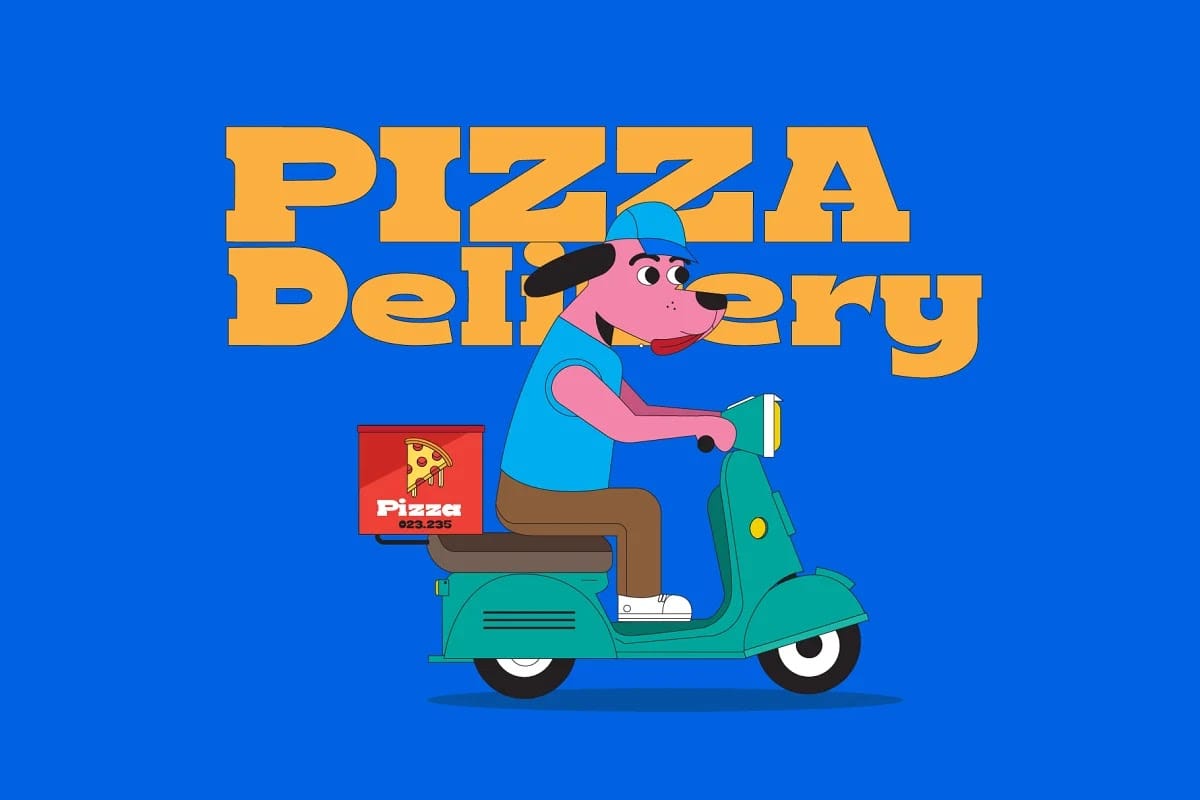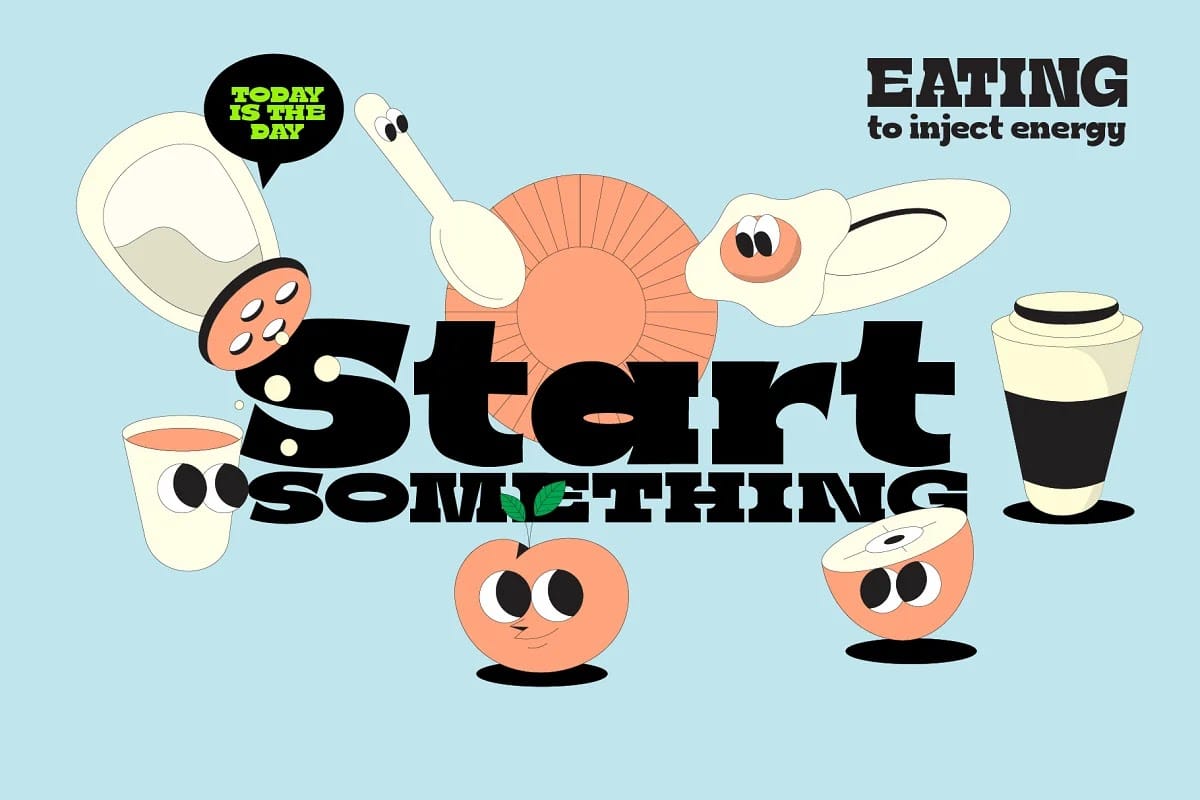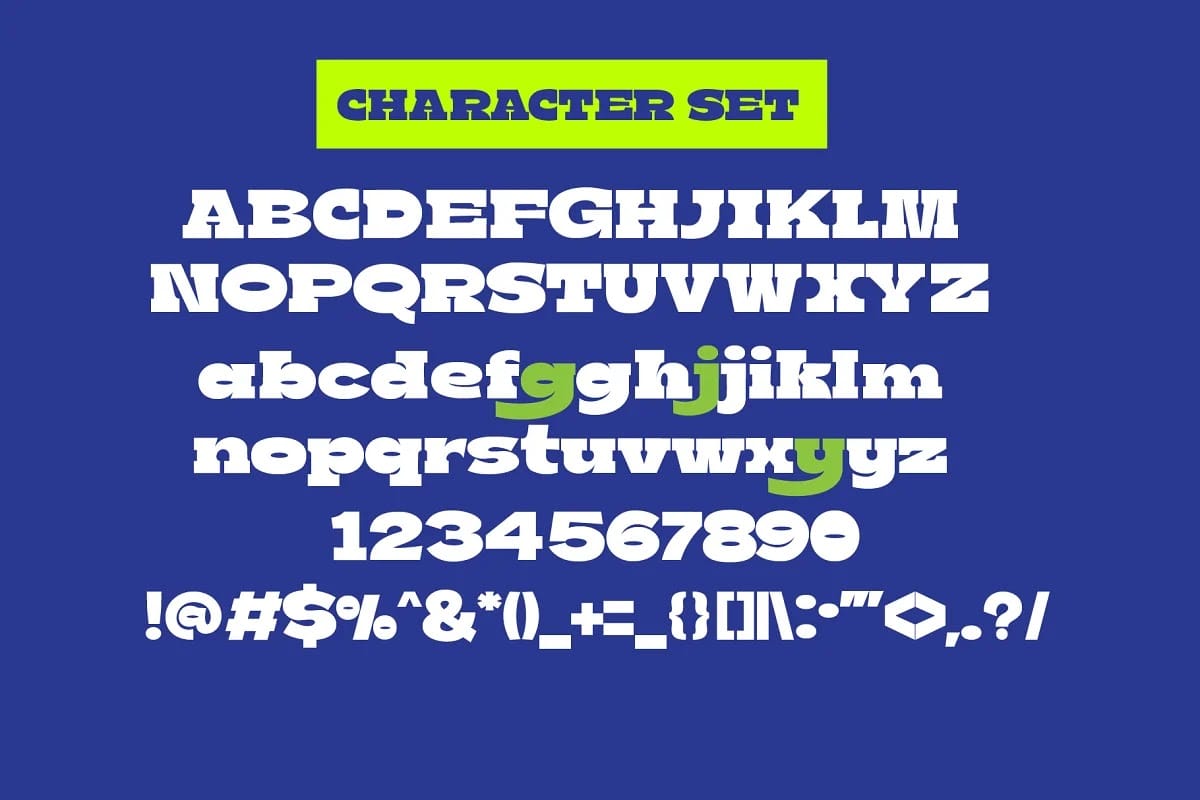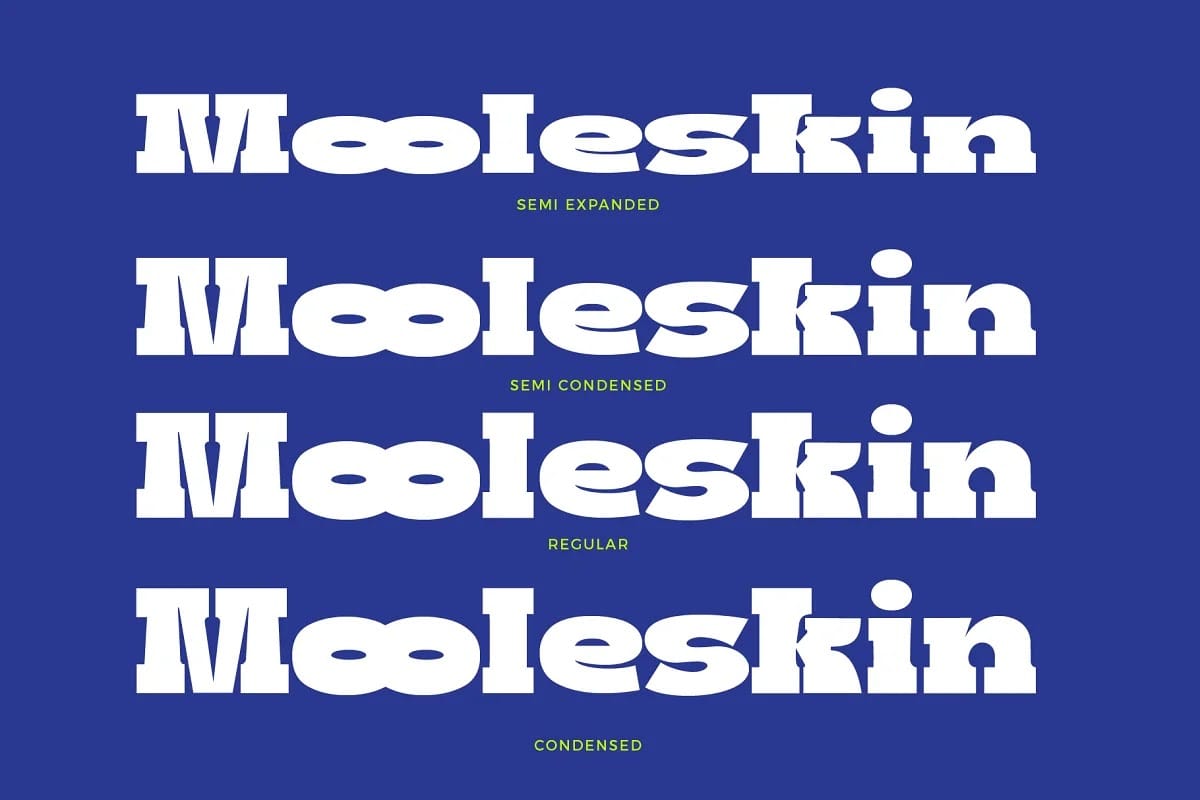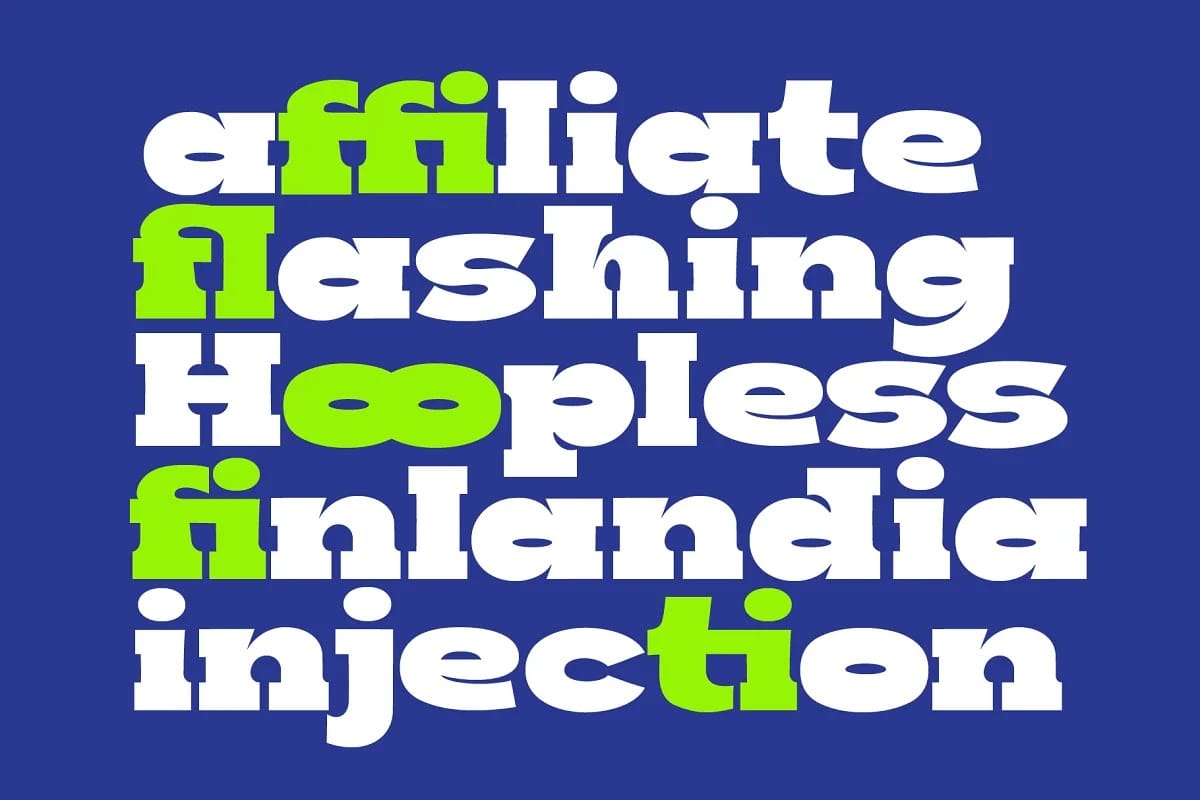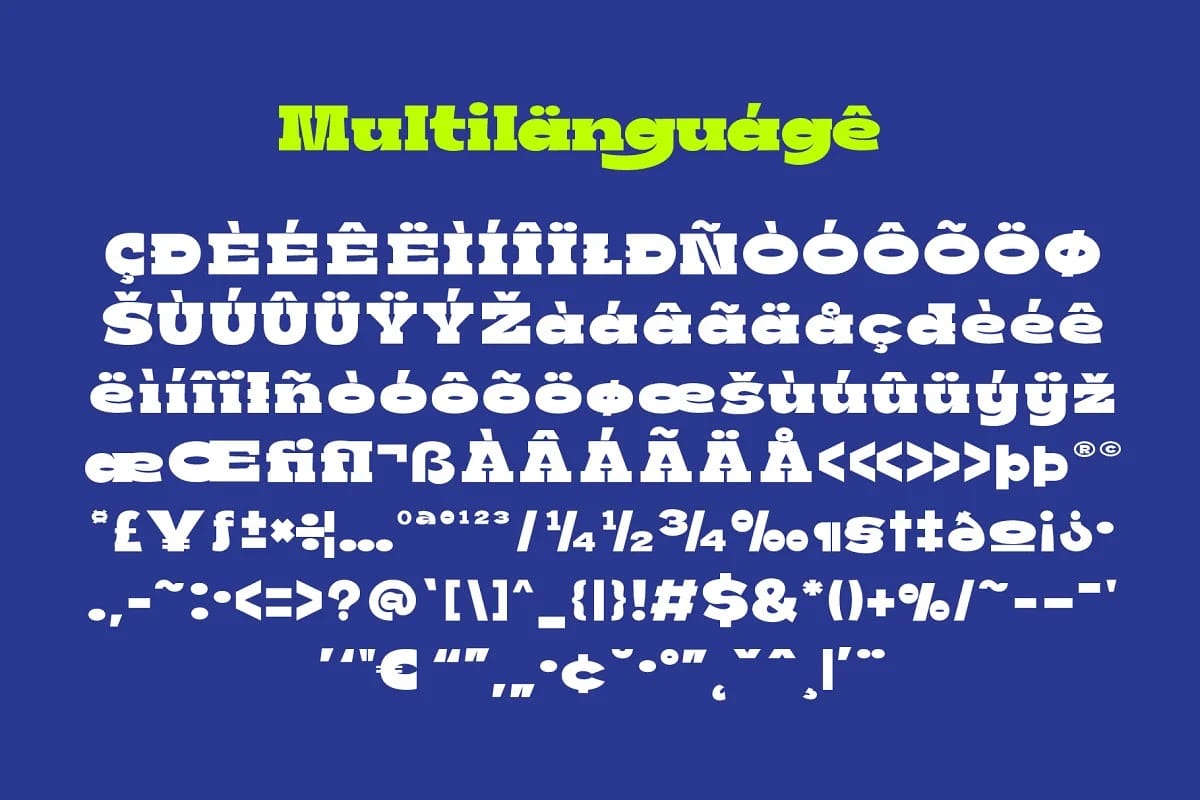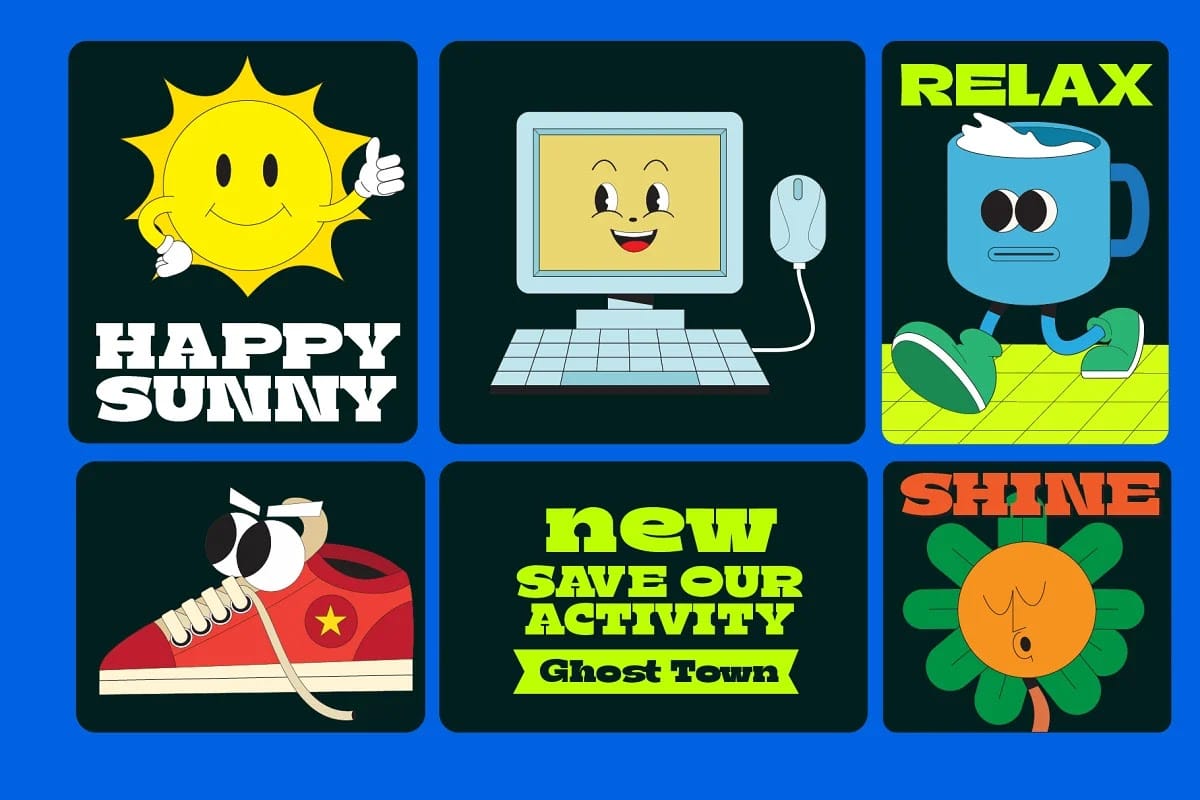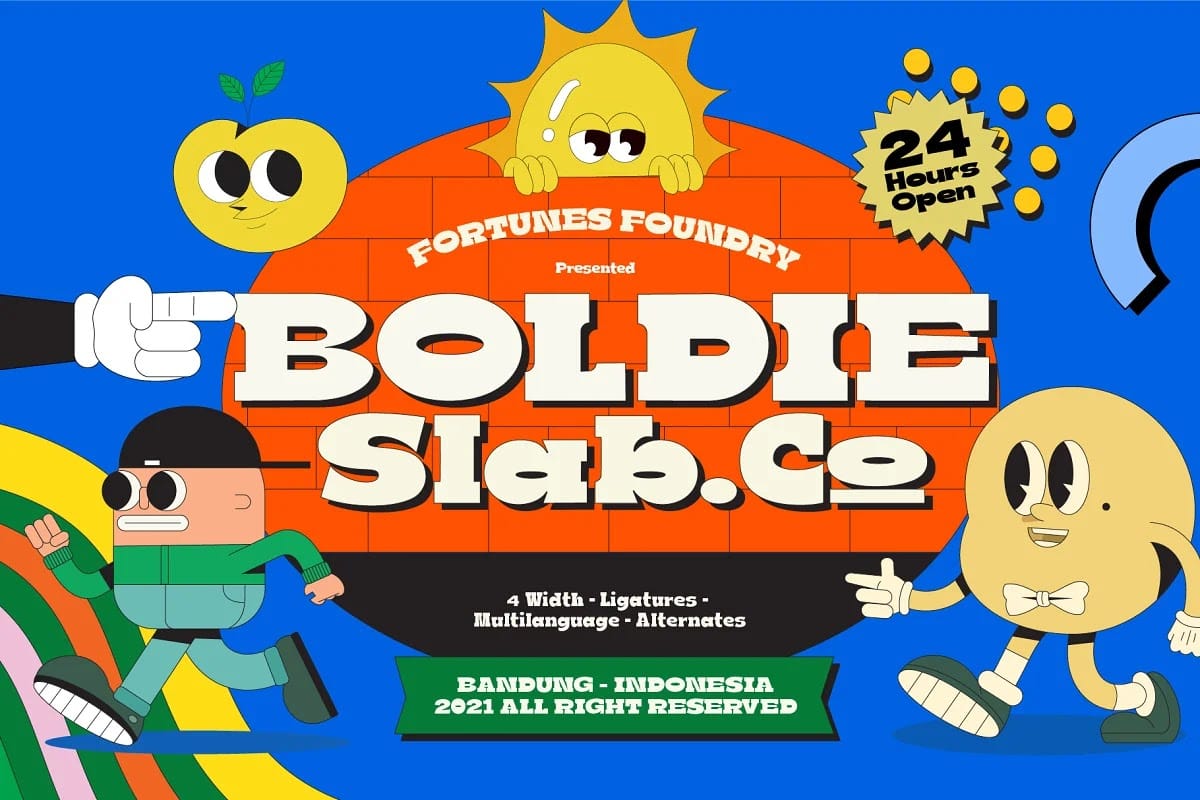
Boldie Slab Font is a display font with width and contrast for a modern and classic typeface. If you need a fun, cute font, then Boldie Slab is a great choice for any design project.Boldie Slab Font Width includes 4 different styles Semi Expand, Semi Condensed, Regular and Condensed. Each typeface has a different display to help you easily use it for different purposes.Really great fonts make your creative work easier – branding, movie titles, covers, ads, posters, web or apps.